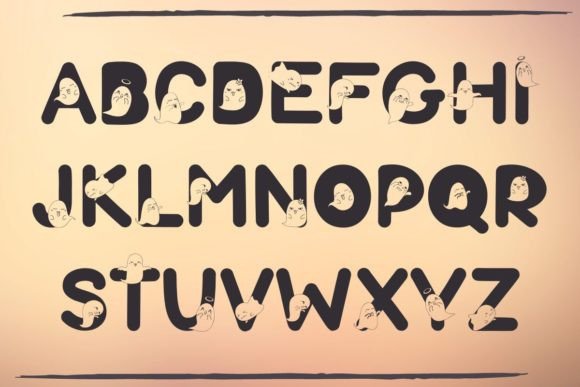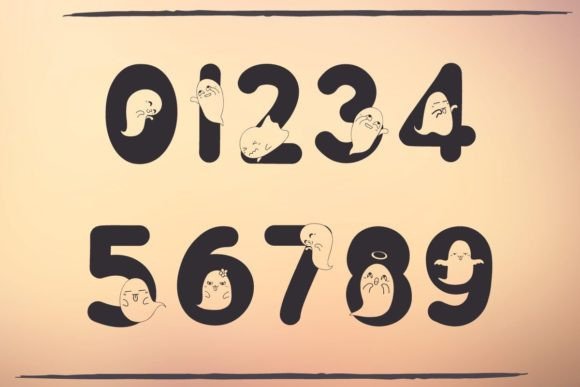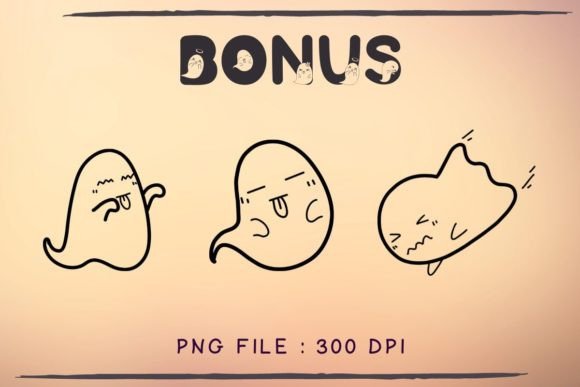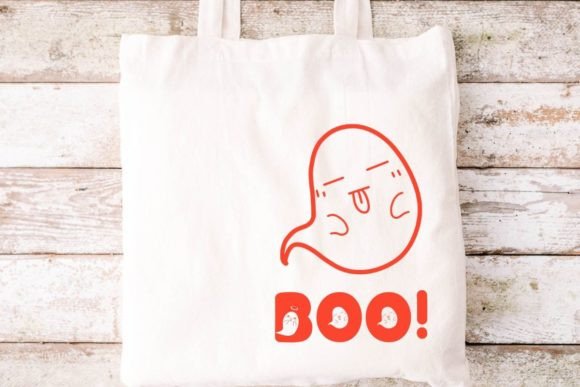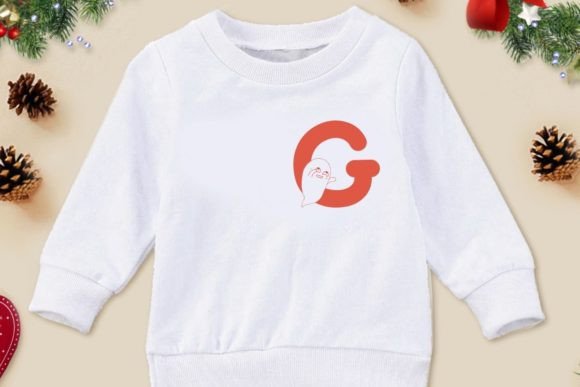
Introduction to Ghost Day Font
Ghost Day is a fun and adorable decorative font.
This font uses multiple cute little ghost silhouettes combined with bold fonts Ghost Day has a cute and quirky style, perfect for creating a wide variety of new designs such as banners, content, mugs, cards, shirts, stationery, social media posts, and more.
Key Features of Ghost Day Font
Why Choose Ghost Day Font?